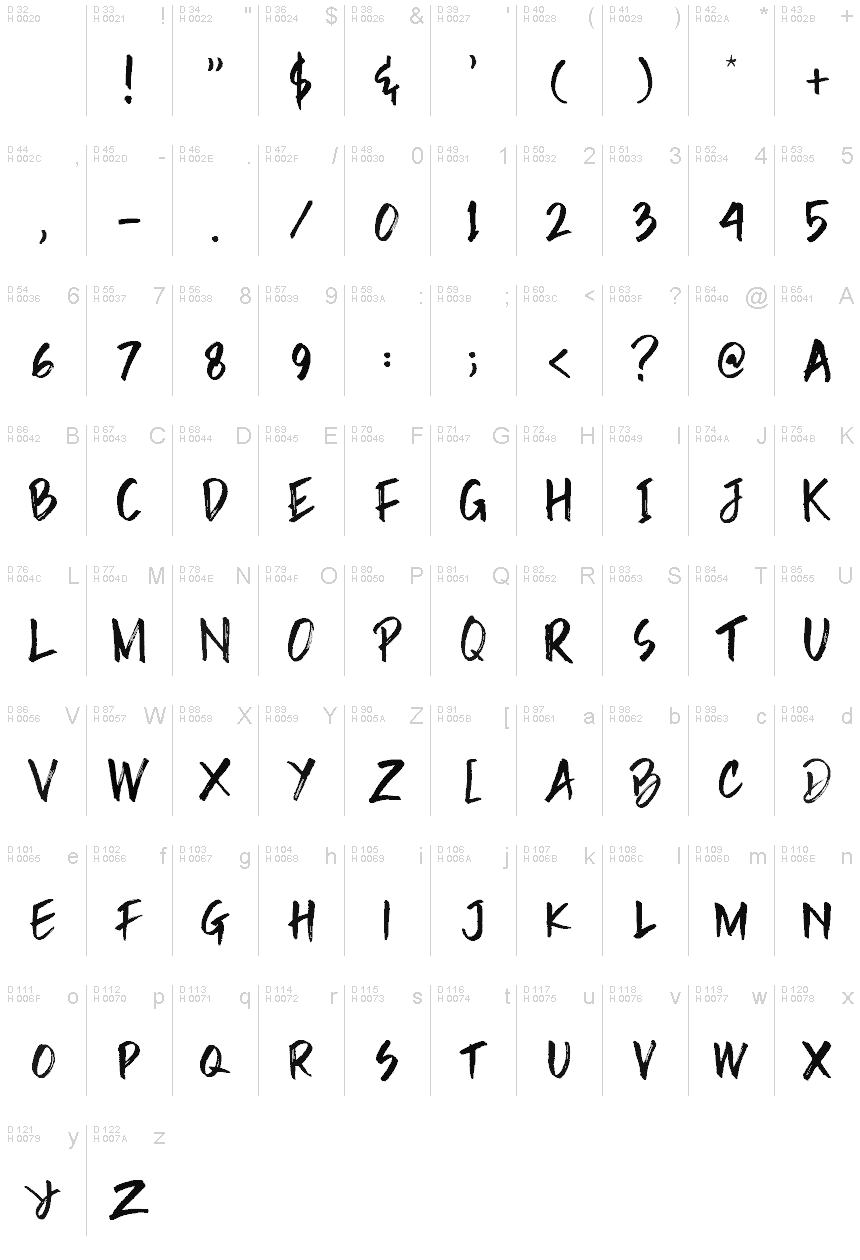
Rain Brush
Rain Brush a Brush Font with semi formal style. This font is great for nowdays project like apparel, Hoodie, T-shirt, quotes, product packaging, watermark, photograpy, poster, branding, or anything which needs a typographic semi formal style. Rain Brush also can be paired with 52 Paint Splatter effect for perfect design. Just do with your own creativity, this is easy use font, will make your project easier.